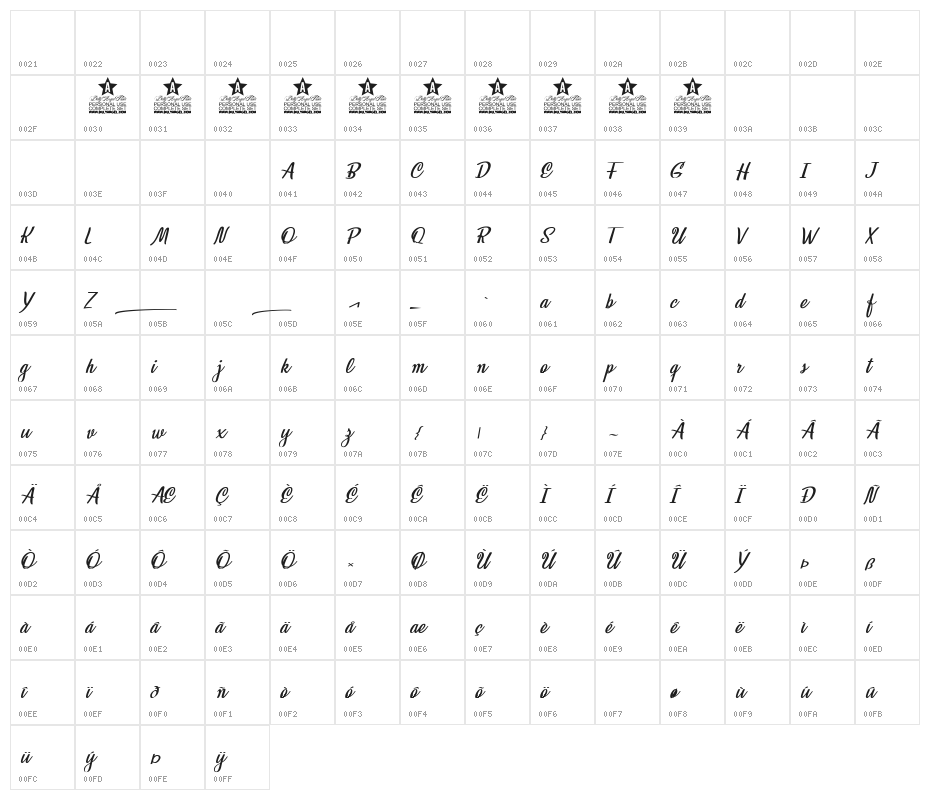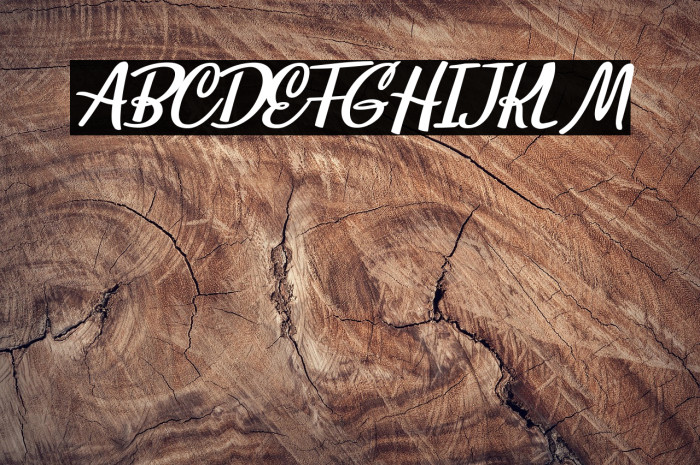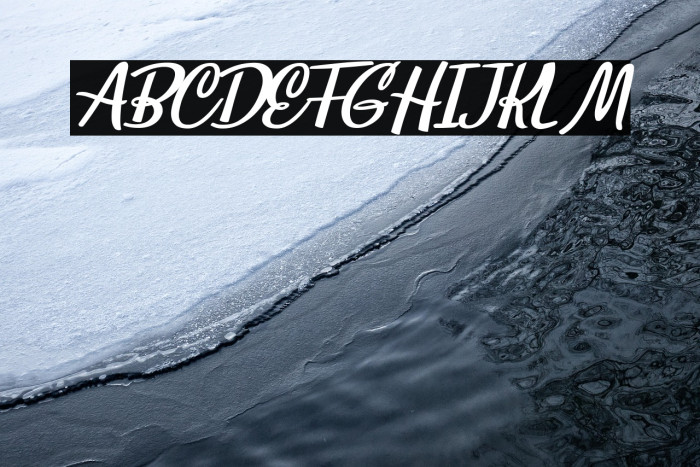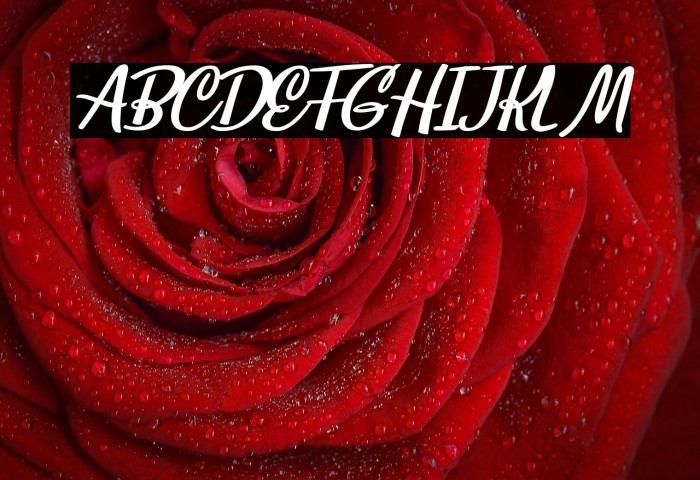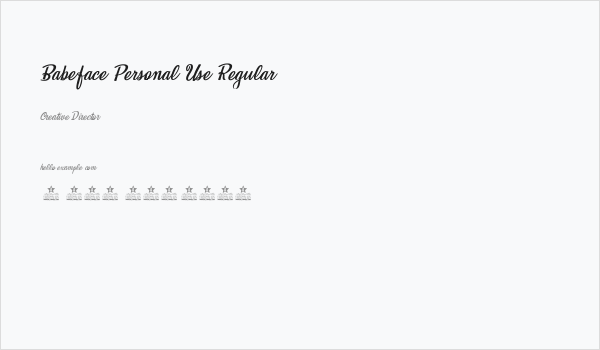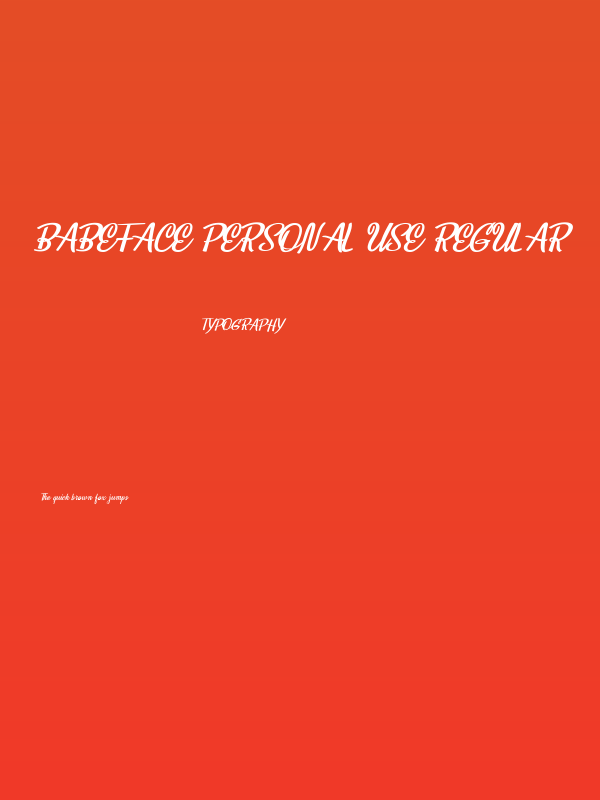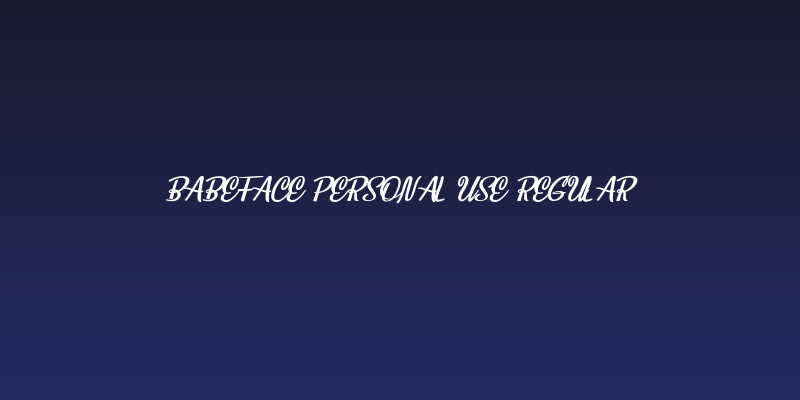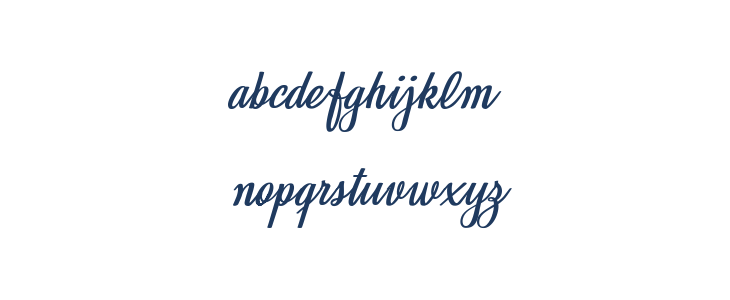
Babeface Personal Use Regular Font
Babeface Personal Use Regular Description
This font features a stylish and elegant script design with a flowing, cursive appearance. The uppercase letters are bold and slightly slanted, giving a sense of movement and grace. The lowercase letters maintain a consistent style, with smooth curves and connected strokes that enhance readability while maintaining a decorative flair. The font's overall aesthetic is sophisticated and modern, making it suitable for a variety of creative projects. The characters are well-spaced, providing a balanced and harmonious look. This font is ideal for use in branding, invitations, and other design projects that require a touch of elegance and personality.
CategoriesScript
ContrastMedium
Overall StyleModern
Use CaseLogos, Invitations, Decorative text
Proposed ProjectsIdeal for branding, invitations, greeting cards, and decorative design projects.